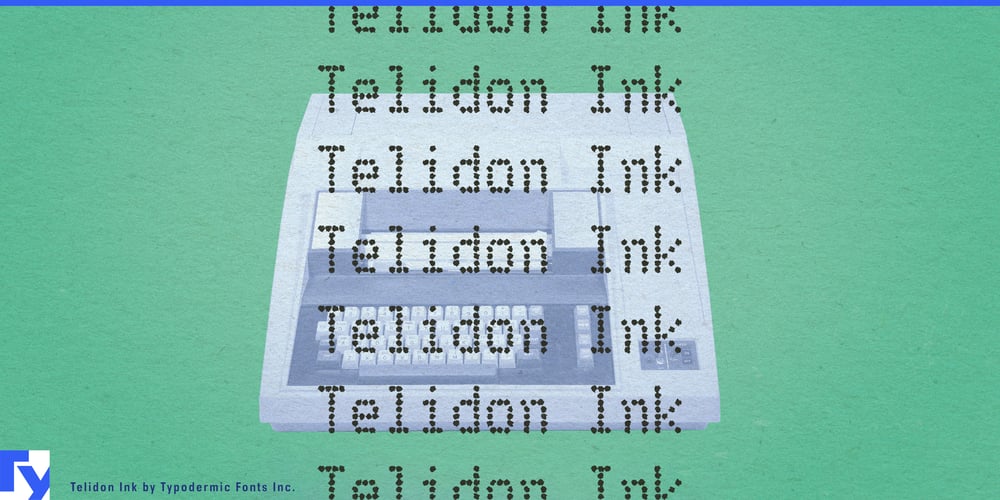
Telidon Ink Font Family was designed by Ray Larabie and published by Typodermic. Telidon Ink contains 18 styles and family package options. Ready to give your designs a jolt of retro electricity? Say hello to Telidon Ink, the typeface that turns every letter into a time capsule from the golden age of dot-matrix printers. It’s a portal to a world where computers were beige, screens were green, and every printout was an adventure.Telidon Ink doesn’t just mimic the look of those classic printers; it captures their very essence. Each character seems to vibrate with the ghostly hum of a printer that’s working overtime. It’s like your words decided to put on a pair of acid-washed jeans and rock out to some synthwave. But don’t mistake Telidon Ink for a one-hit wonder. This typeface is as versatile as a Swiss Army knife at a tech convention. With its range of widths, weights, and italics, you can make your text whisper, shout, or do the robot dance—sometimes all in the same sentence. Need to squeeze some nostalgia into a tight space? Telidon Ink’s got your back. Want to make a statement that’s bolder than a neon windbreaker? It can do that too.And just when you thought it couldn’t get any better, Telidon Ink brings along its straight-laced sibling, Telidon. Together, they’re like the dynamic duo of retro typography—one’s ready to party like it’s 1985, while the other keeps things professional… well, as professional as dot-matrix can get. Telidon Ink isn’t just fluent in English—it’s a polyglot that can charm readers in dozens of languages. From Albanian to Zulu, it’s ready to bring its pixelated pizzazz to a global audience. It’s like having a United Nations conference, but way cooler and with better fashion sense.So why settle for fonts that look like they were born in the cloud? Download Telidon Ink today and watch as your designs start to buzz with the raw energy of an era when every printout felt like a small miracle. It’s time to make some noise in the quiet world of modern typography—and Telidon Ink is here to lead the rebellion, one perfectly imperfect dot at a time. Get ready to turn heads, spark conversations, and maybe, just maybe, make people wonder if you’ve got a time machine hidden in your design studio.